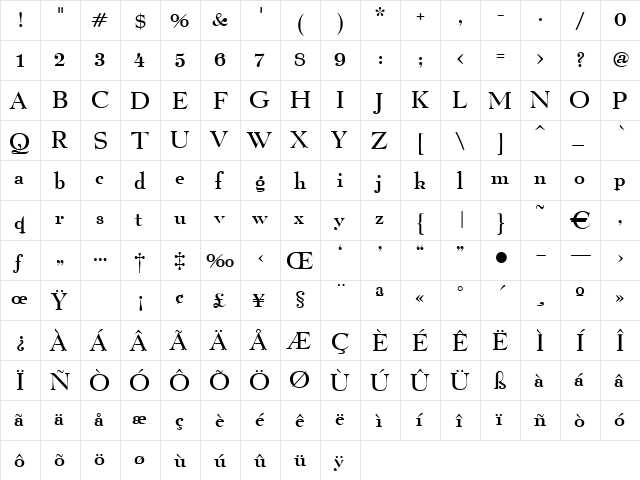
QuartierDemiBold Regular
Design Context for QuartierDemiBold Typeface
QuartierDemiBold is a composed and adaptable typeface that performs quietly and consistently across a wide range of design contexts. Its bold stroke weight gives it real presence on the page.